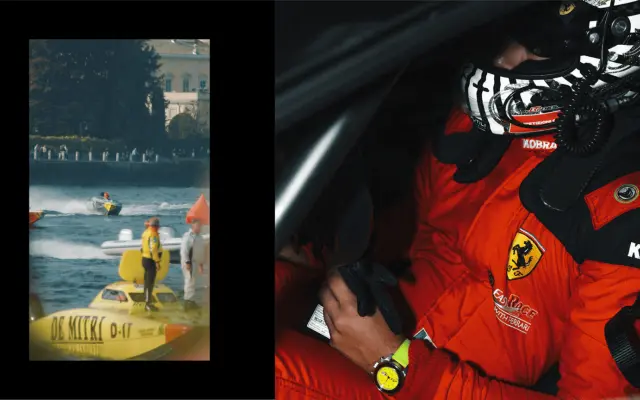
Unimatic
Character Type · Oleksandr Parkhomovskyy
A bespoke variable numeral set designed for UNIMATIC watches, spanning compressed to super-extended widths to suit both watch centres and bezels.
Commissioned by Milan-based watchmaker UNIMATIC, this custom typeface exists solely as a set of numerals built into a variable font. The width axis runs from compressed through to super-extended, allowing the brand to dial in the right proportion for each watch edition, with tighter compressed styles used in watch centres and broader extended styles reserved for bezels. Its design lineage draws on the Dirty Dozen, a set of twelve Second World War British military field watches.
A bespoke numeral-only variable font designed for watch faces and bezels, spanning compressed to extended widths. Classified as display due to its highly specialised, decorative application in product design rather than continuous text setting.